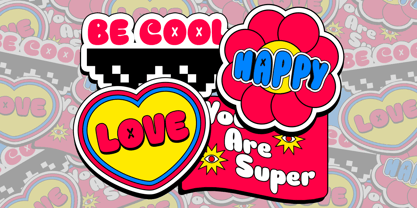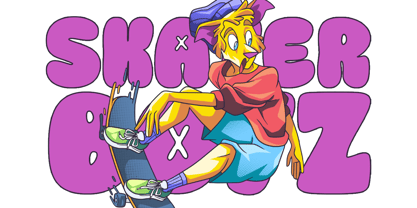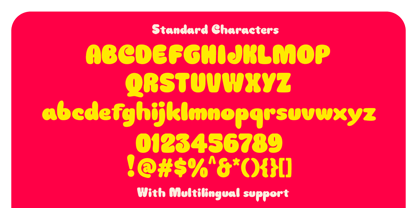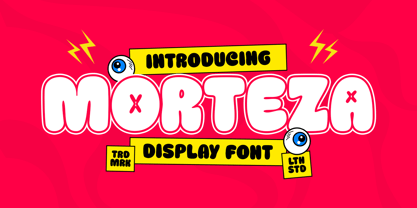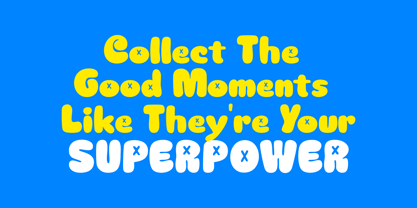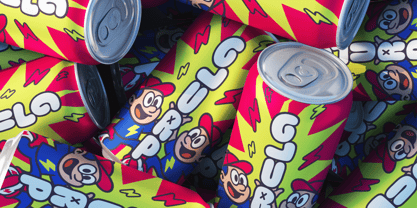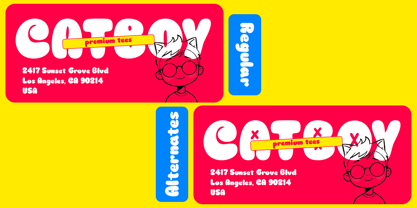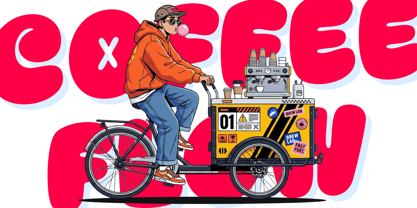
Morteza
Die Schriftfamilie Morteza wurde von Hendry Juanda entworfen und von Letterhend veröffentlicht. Morteza enthält 1 Stile. Mehr über diese Familie
Morteza is a bold, bubbly display font with a retro-cartoon vibes—full of chunky curves, and playful quirkiness. The letters pop like comic candy, giving off a fun, energetic vibe that feels mischievous yet friendly.. With its exaggerated shapes, cute crossed-eye details, and bright pop-art spirit, this font shines in energetic branding, kids’ products, packaging, posters, and anything that needs loud, joyful character. It’s built to grab attention, spark smiles, and bring a fun visual punch to any layout. Features : Uppercase & lowercase Numbers and punctuation Alternates & Ligatures Multilingual Support PUA encoded